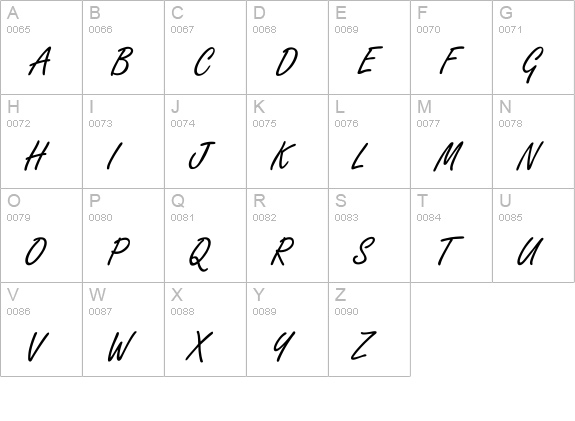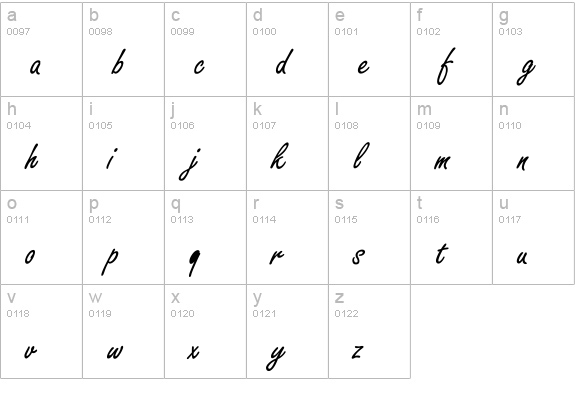
Boldstylescript Font Details
Boldstylescript is a stunning and versatile font that exudes boldness and style. Its elegant script design makes it perfect for a wide range of projects, from invitations and logos to branding and packaging. The font features clean lines and a modern touch that gives it a contemporary edge. What makes Boldstylescript even more appealing is that it is available for free download at FontsMarket.com. This means you can easily access this beautiful font and use it in your designs without any cost. Whether you're a professional designer or just someone looking to add a touch of sophistication to your projects, Boldstylescript is the perfect choice. Download it today and elevate your designs with this exquisite font.